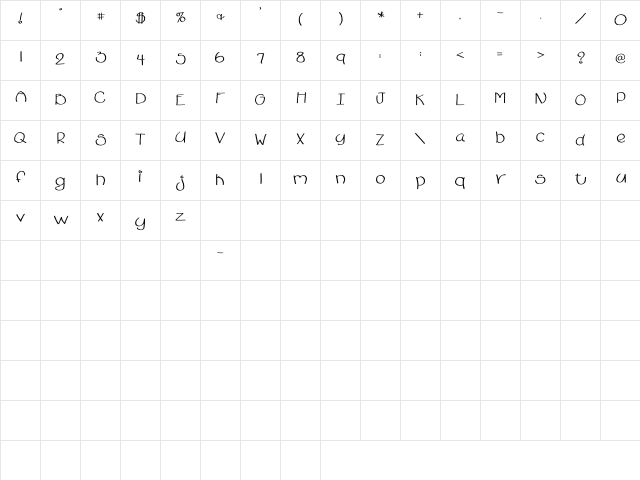
2Peas Permanent Wave 2Peas Permanent Wave Font Preview
2Peas Permanent Wave 2Peas Permanent Wave
2Peas Permanent Wave 2Peas Permanent Wave Font Details
Design Context for 2Peas Permanent Wave Typeface
2Peas Permanent Wave is a composed and adaptable typeface that performs quietly and consistently across a wide range of design contexts.